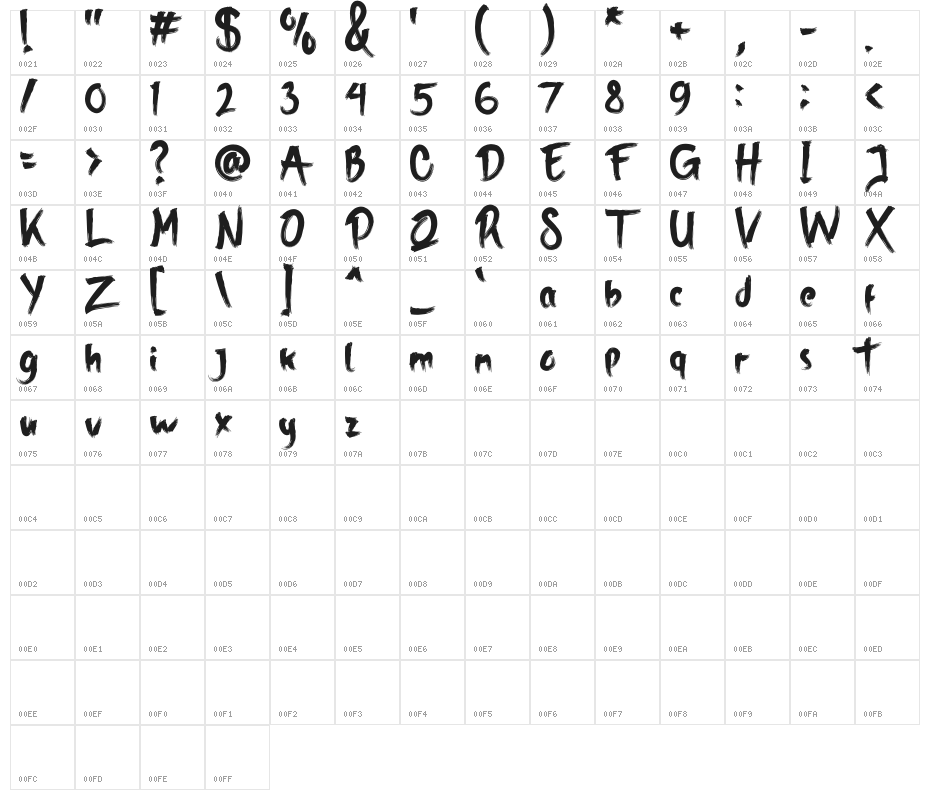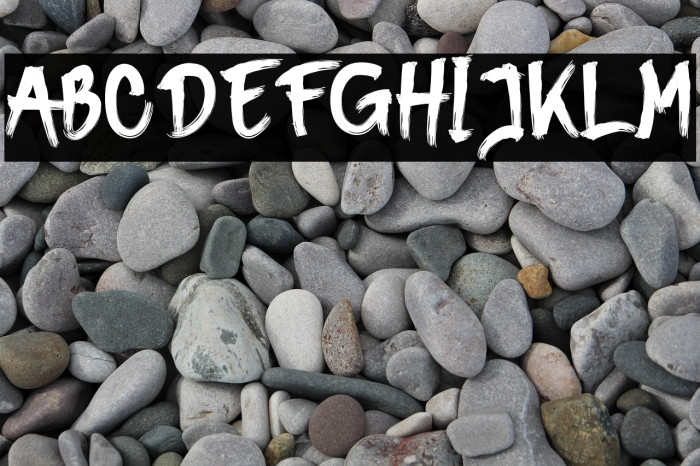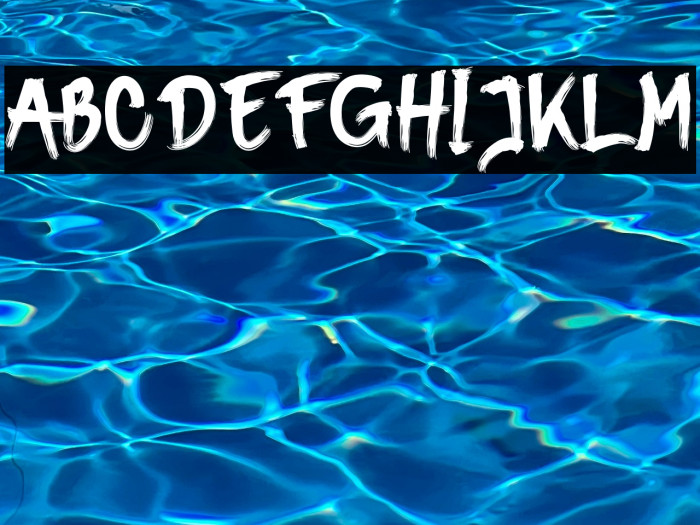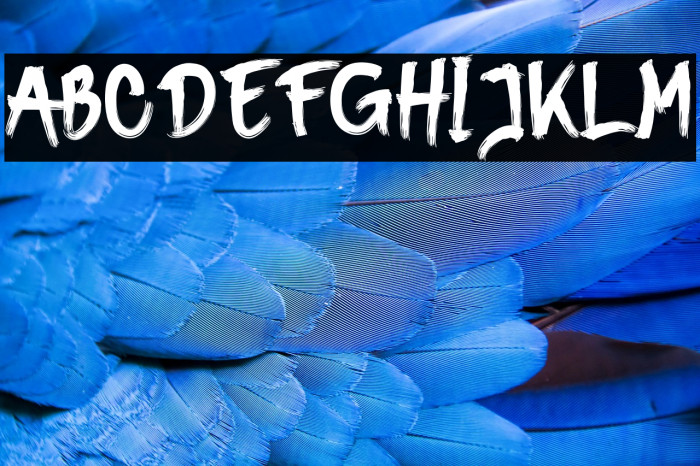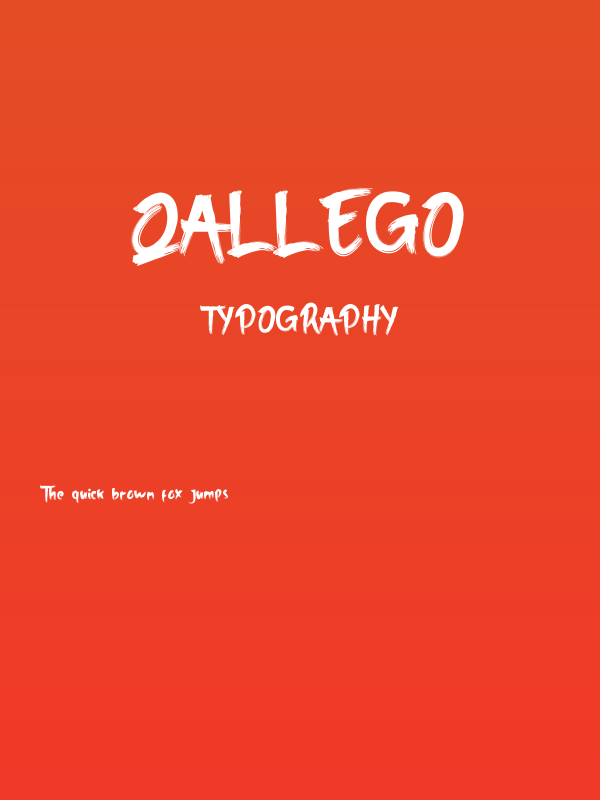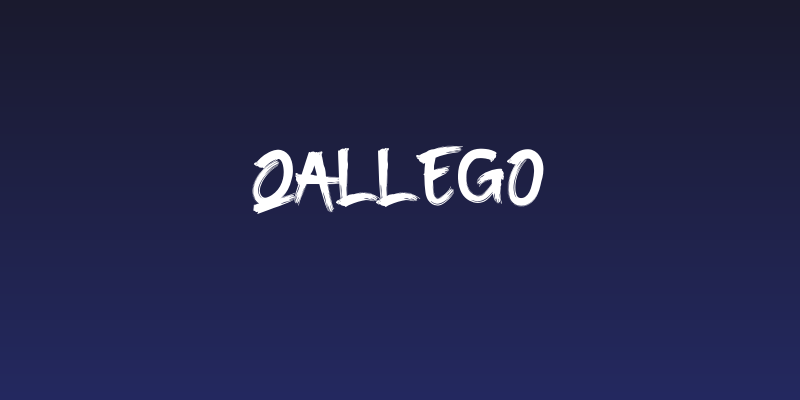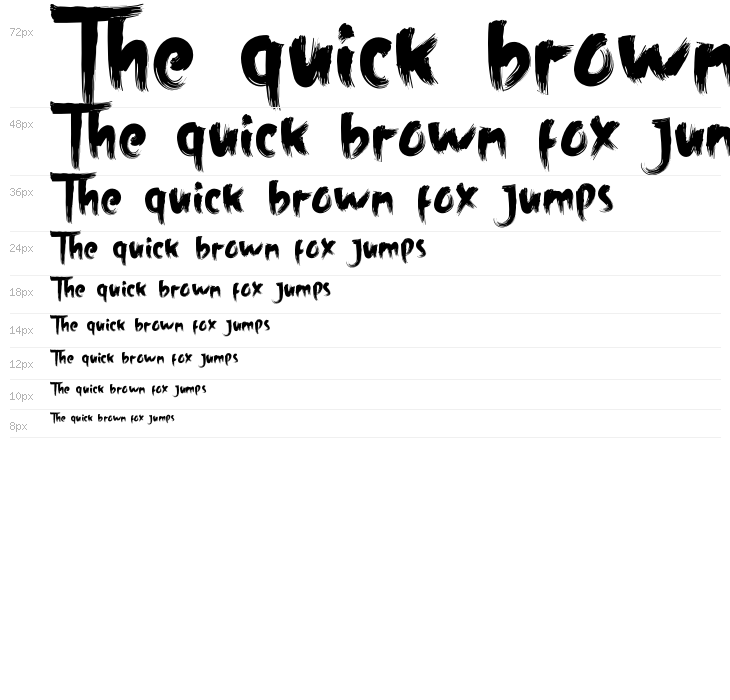
Qallego Font
Qallego Description
This font exudes a bold and expressive style, characterized by its brush-like strokes that convey a sense of dynamism and energy. The uppercase and lowercase letters maintain a consistent flow, with each character exhibiting unique, hand-drawn qualities. The numbers and special characters follow the same artistic theme, adding to the overall cohesive appearance. The font's design is reminiscent of calligraphy, with a modern twist that makes it suitable for contemporary projects. Its artistic flair and distinct personality make it stand out, capturing attention with its dramatic and fluid lines.
Proposed ProjectsIdeal for branding, posters, album covers, and creative projects that require a bold, artistic touch.